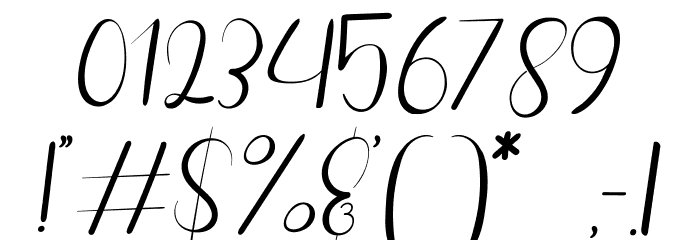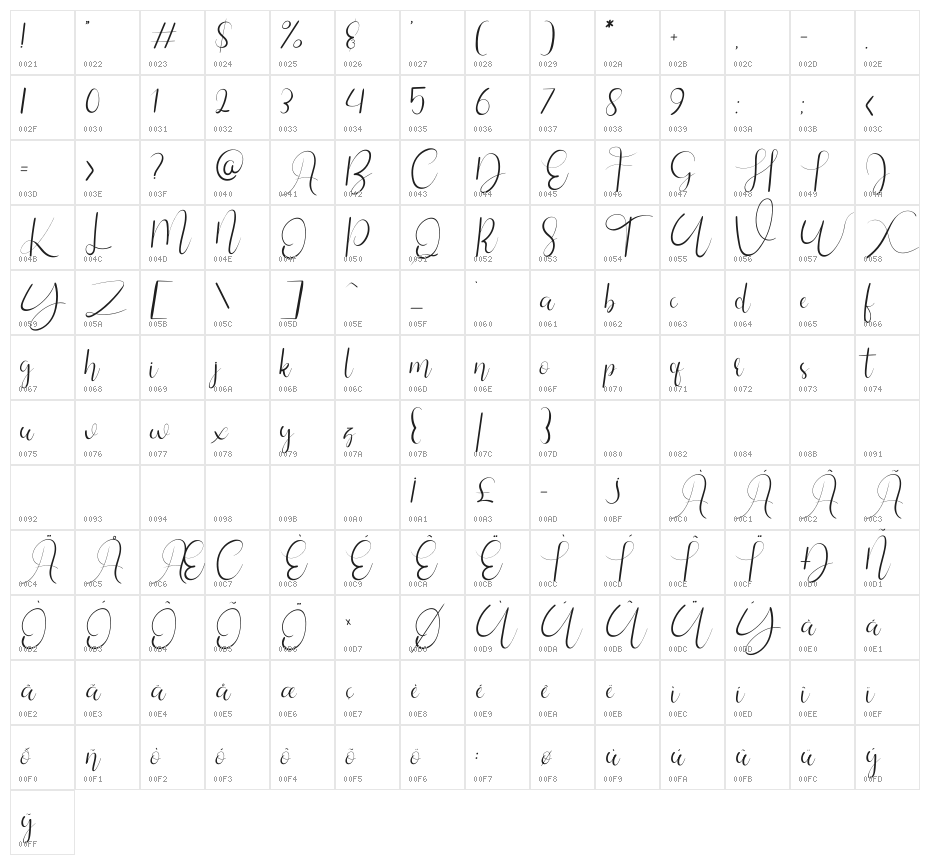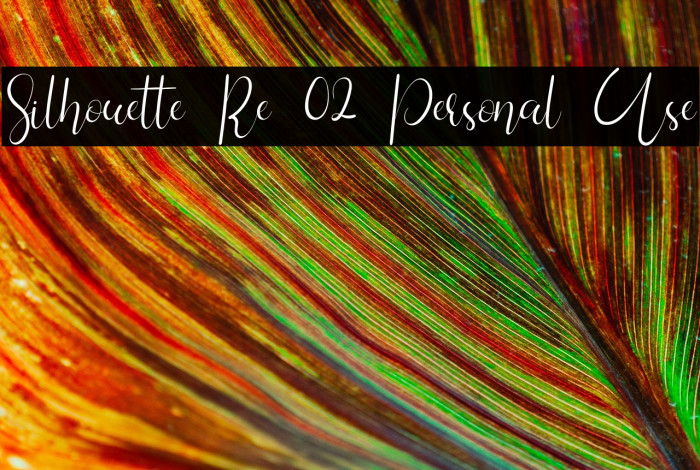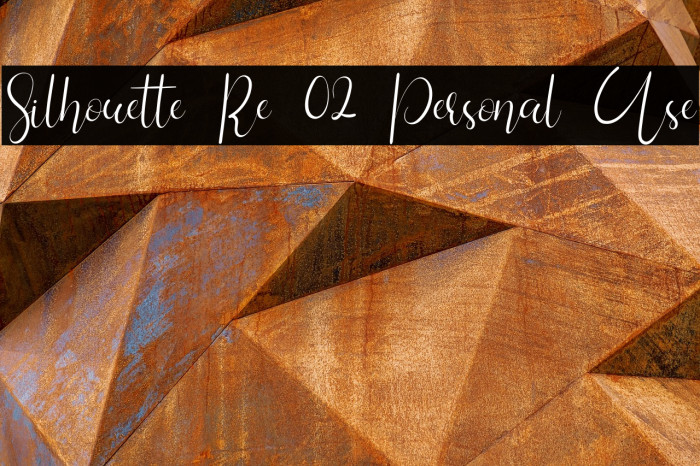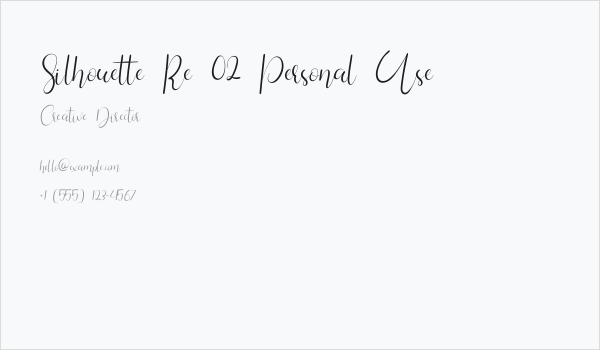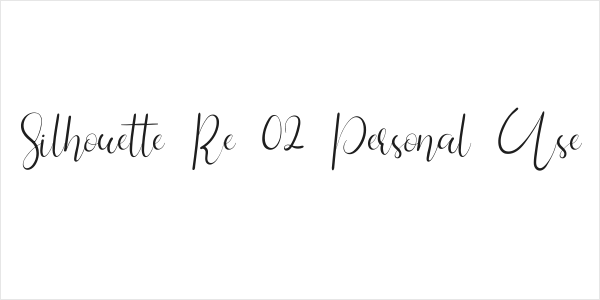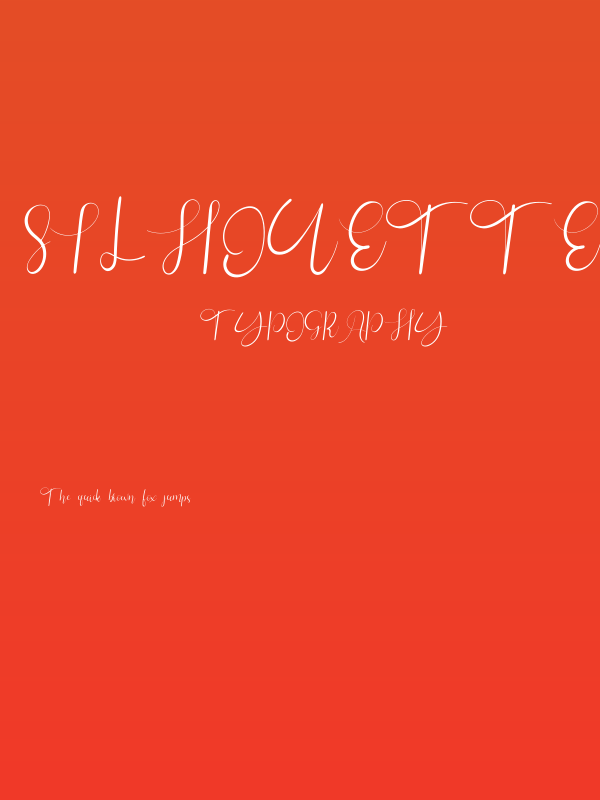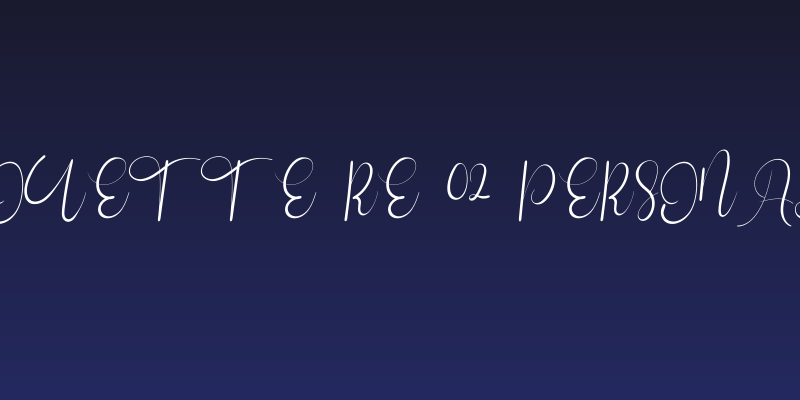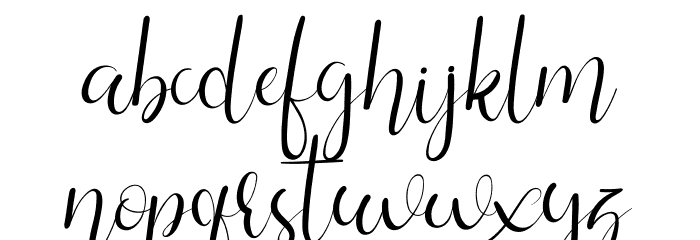
Silhouette Re 02 Personal Use Font
Silhouette Re 02 Personal Use Description
This font exhibits a flowing, cursive style with elegant, sweeping lines and a handwritten aesthetic. The uppercase letters are characterized by their tall, slender forms and graceful loops, while the lowercase letters maintain a consistent fluidity and charm. The numerals are distinct and maintain the same cursive flair, making them easily readable yet stylish. Special characters are integrated seamlessly, adding to the font's versatility. The overall design is both sophisticated and approachable, making it suitable for a variety of creative applications.